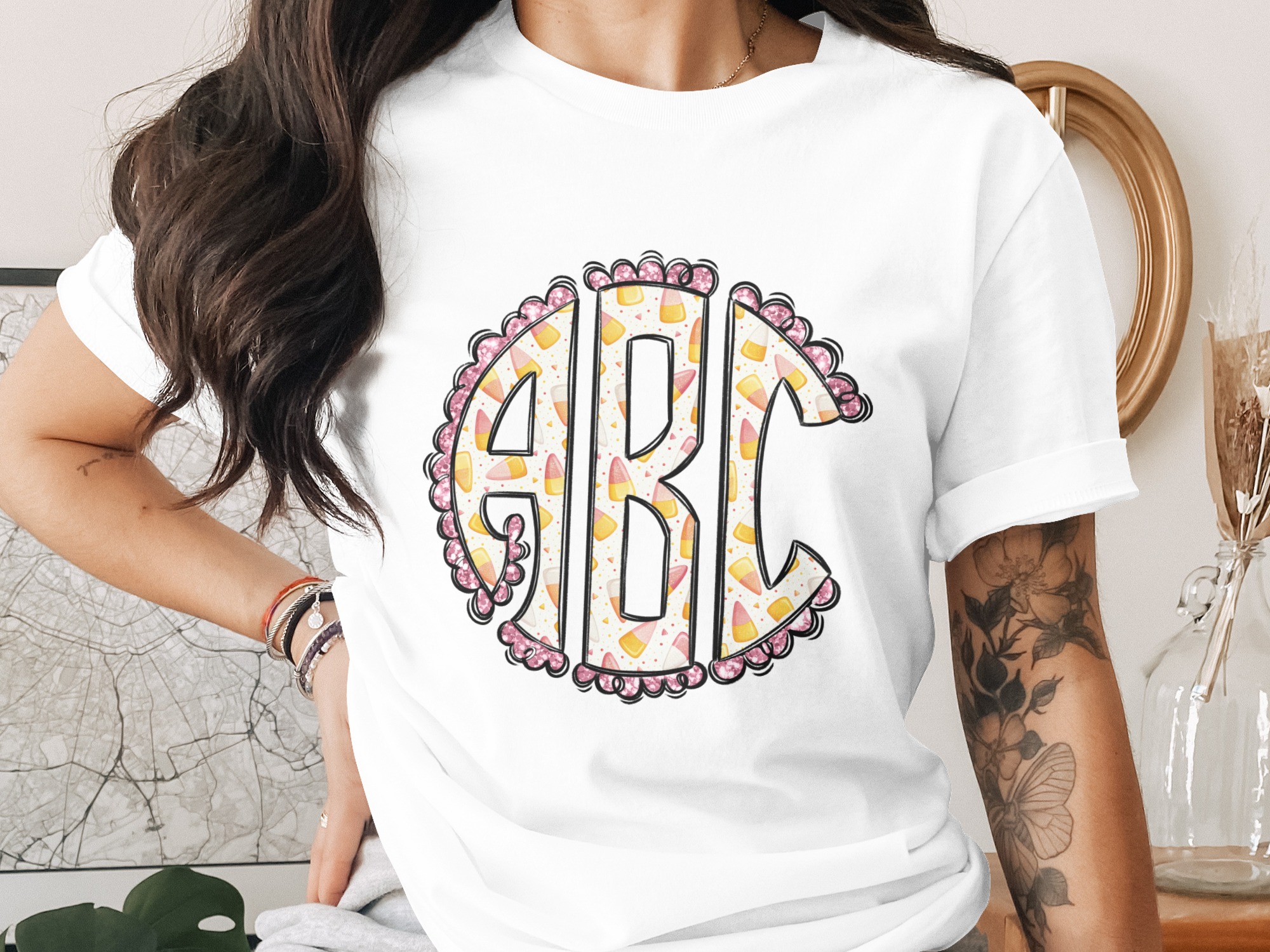
Get ready for fall with this adorable candy corn monogram design! Perfect for creating personalized gifts, apparel, and home decor items. This design features a round monogram frame with a cute candy corn pattern and glitter accents.